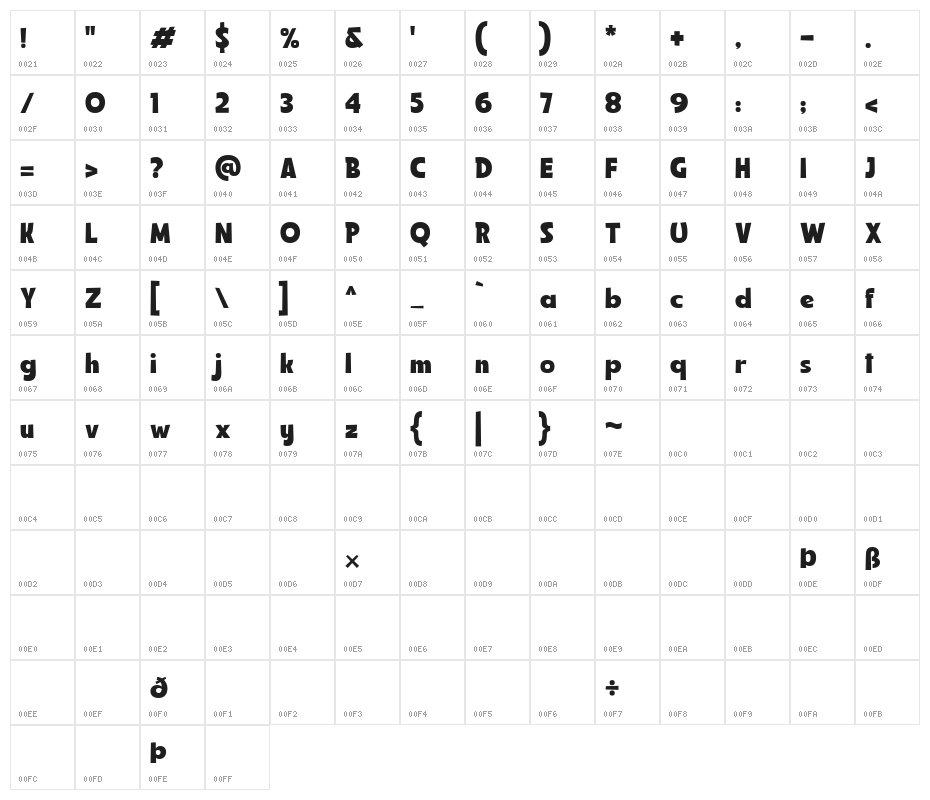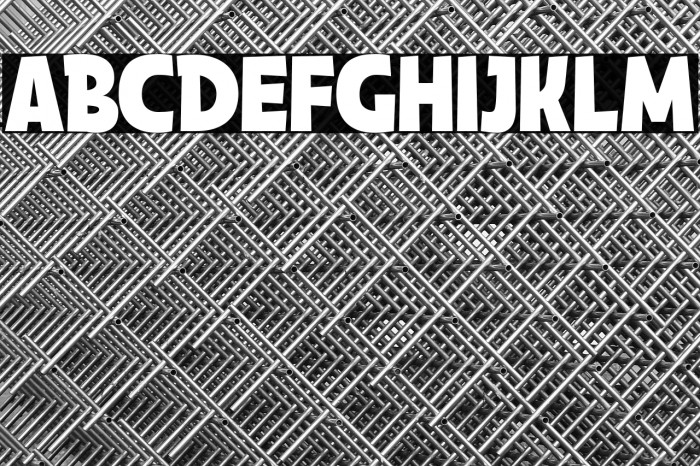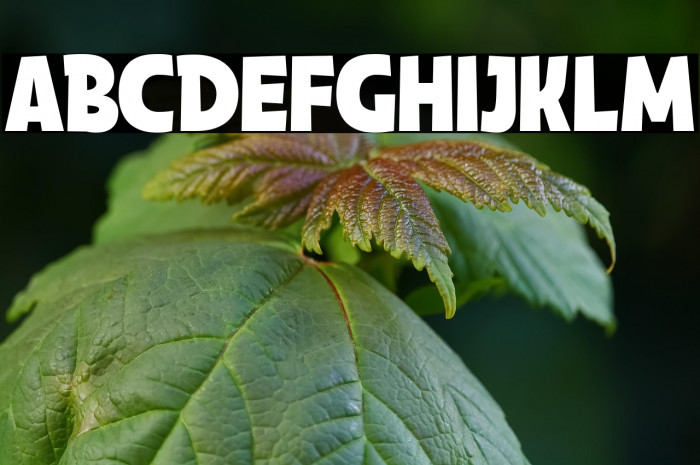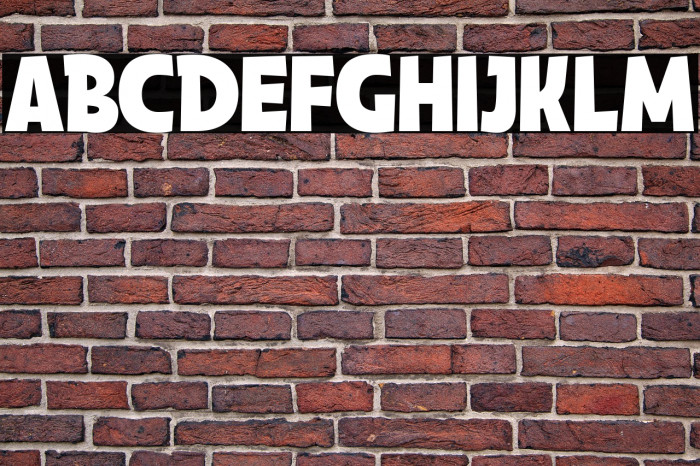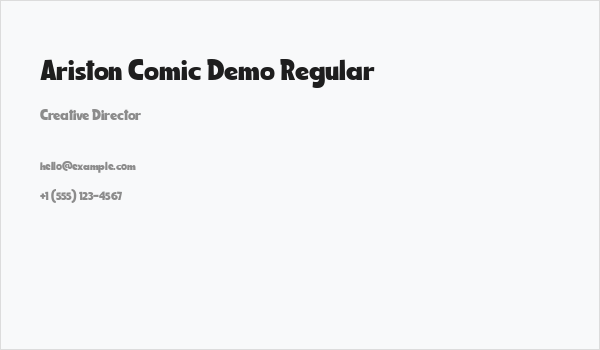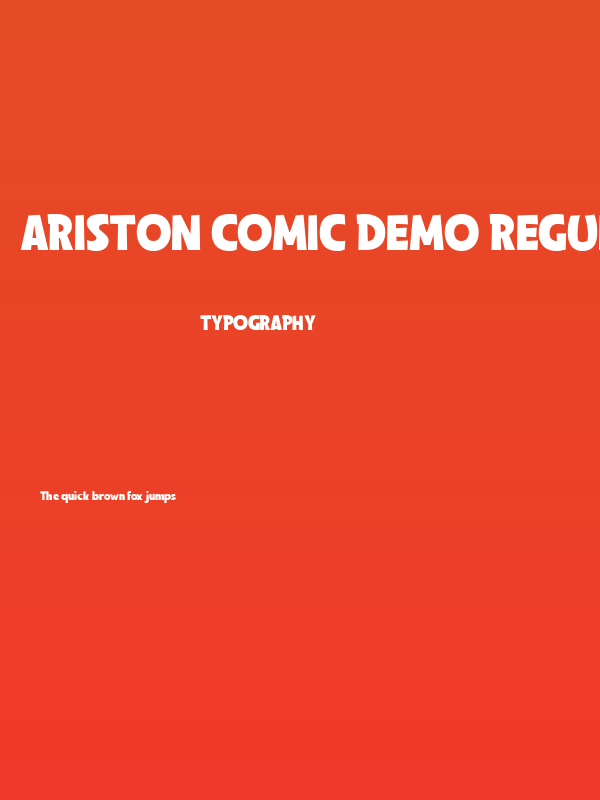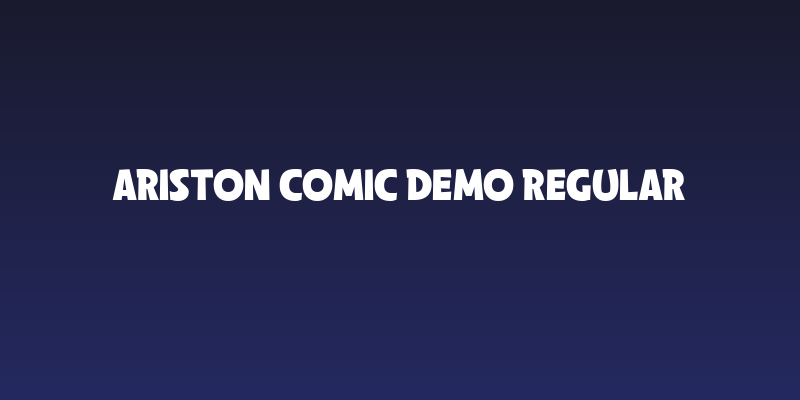
Ariston Comic Demo Regular Font
Ariston Comic Demo Regular Description
This font features a playful and bold style, characterized by thick, rounded strokes and a slightly irregular baseline that gives it a whimsical, comic-like appearance. The uppercase and lowercase letters maintain a consistent weight, providing a cohesive look across the alphabet. The numbers and special characters are designed to match the playful aesthetic, making them ideal for informal and fun projects. The overall design is approachable and friendly, with a touch of humor that can add personality to any text.
| Overall Style | Playful, Comic |